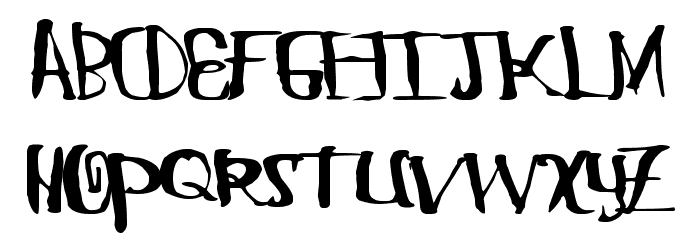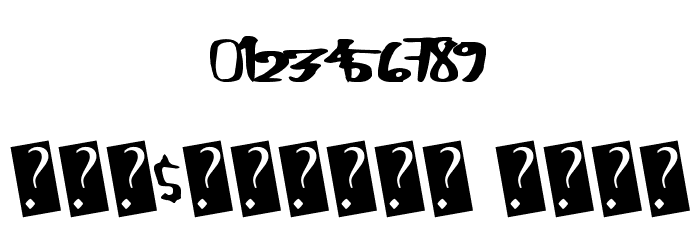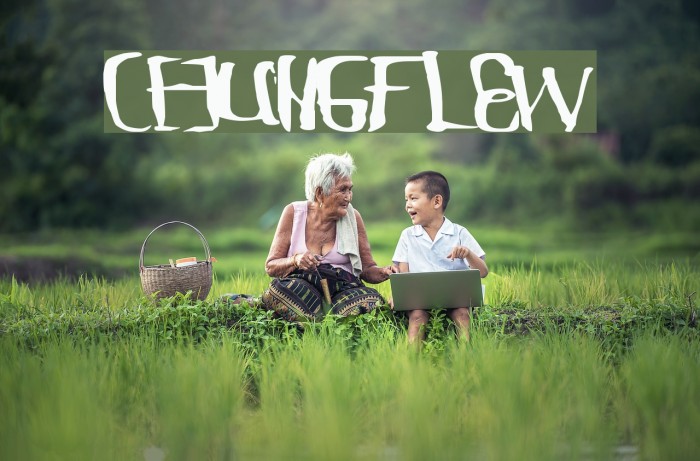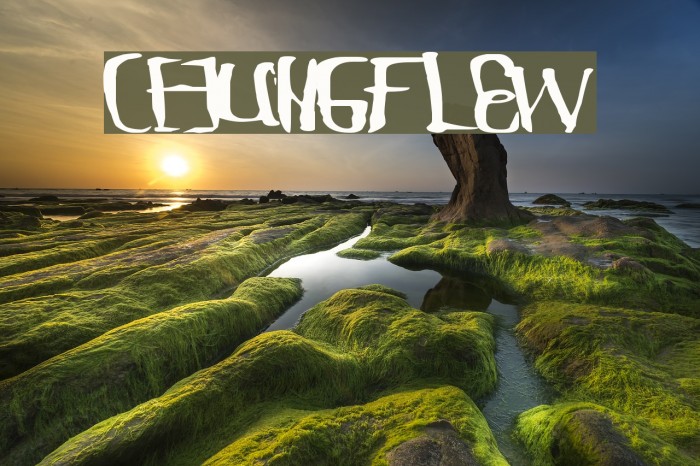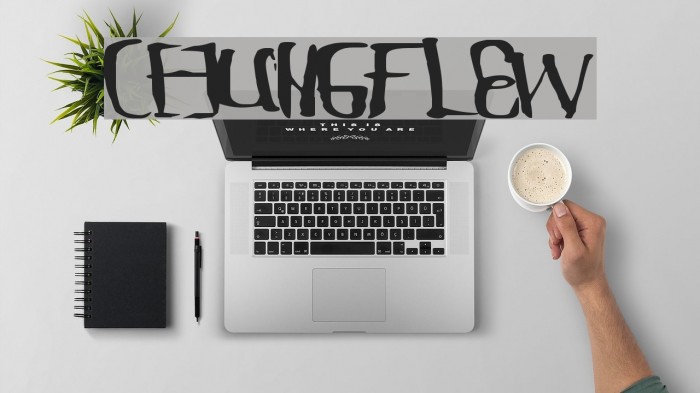
ChungFlew Font
This font features a bold and expressive style with a hand-drawn appearance, characterized by its thick and uneven strokes. The letters have a dynamic and energetic feel, with a slightly chaotic arrangement that adds to its unique charm. The uppercase and lowercase letters share a consistent style, maintaining the boldness and irregularity throughout. Numbers and special characters follow the same design principles, ensuring a cohesive look. The font's artistic flair makes it stand out, ideal for projects that require a touch of creativity and individuality.
A bold, hand-drawn font with expressive and uneven strokes.
- Proposed Projects: Perfect for artistic projects, posters, album covers, and branding that seeks a creative and bold statement.
- Use Case: Logos, Posters, Creative projects